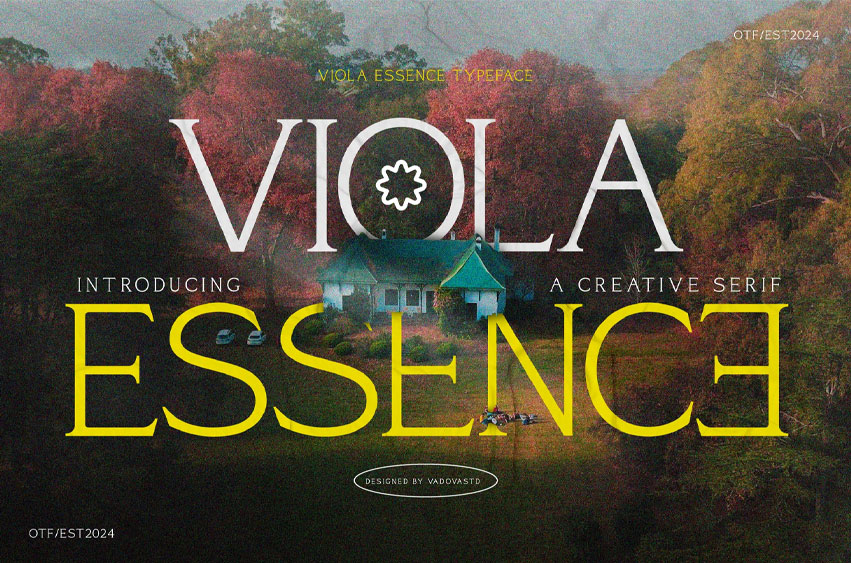
Viola Essence Font
Viola Essence Font Elegant Serif Font is a graceful serif typeface with refined curves and timeless elegance. Inspired by classical typography with a creative twist, this font exudes sophistication, making it ideal for branding, wedding stationery, fashion logos, or editorial designs. Viola Essence blends modern delicacy with traditional charm—offering a versatile, high-end feel that fits beauty products, premium packaging, or lifestyle content. Whether you’re crafting a romantic headline or a feminine brand identity, Viola Essence adds essence and emotion to your design.